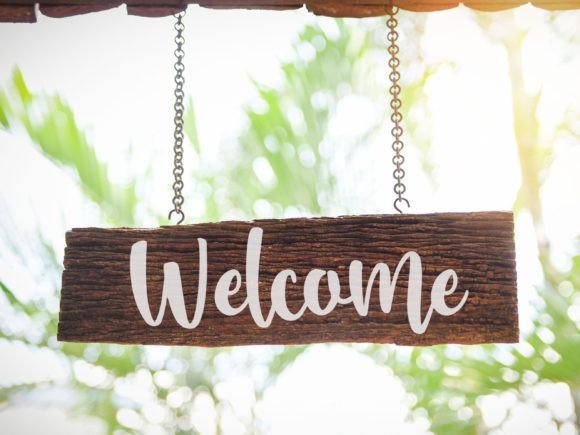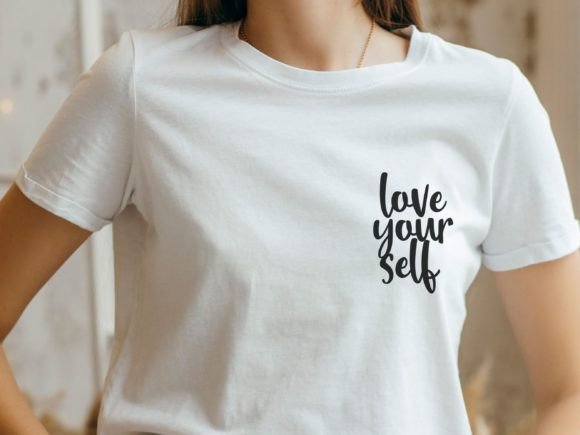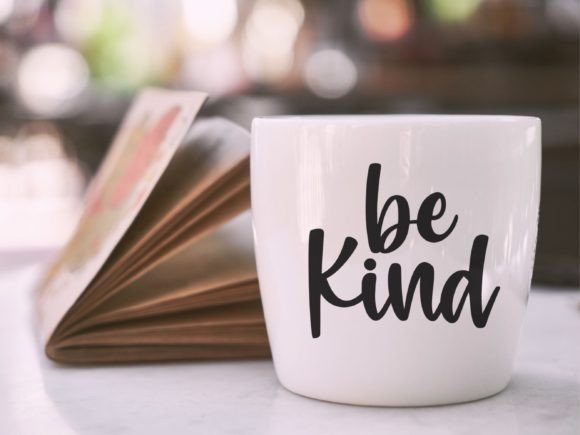
Butter Milk Font
Butter Milk is a Modern Handwriting Script. Its natural style will make your design authentic. if you need a soft but bold and fun font for your projects, this one is perfect. Butter Milk also can be typeface script. it’s suitable for invitation cards, flyers, posters, PODs, branding, etc.